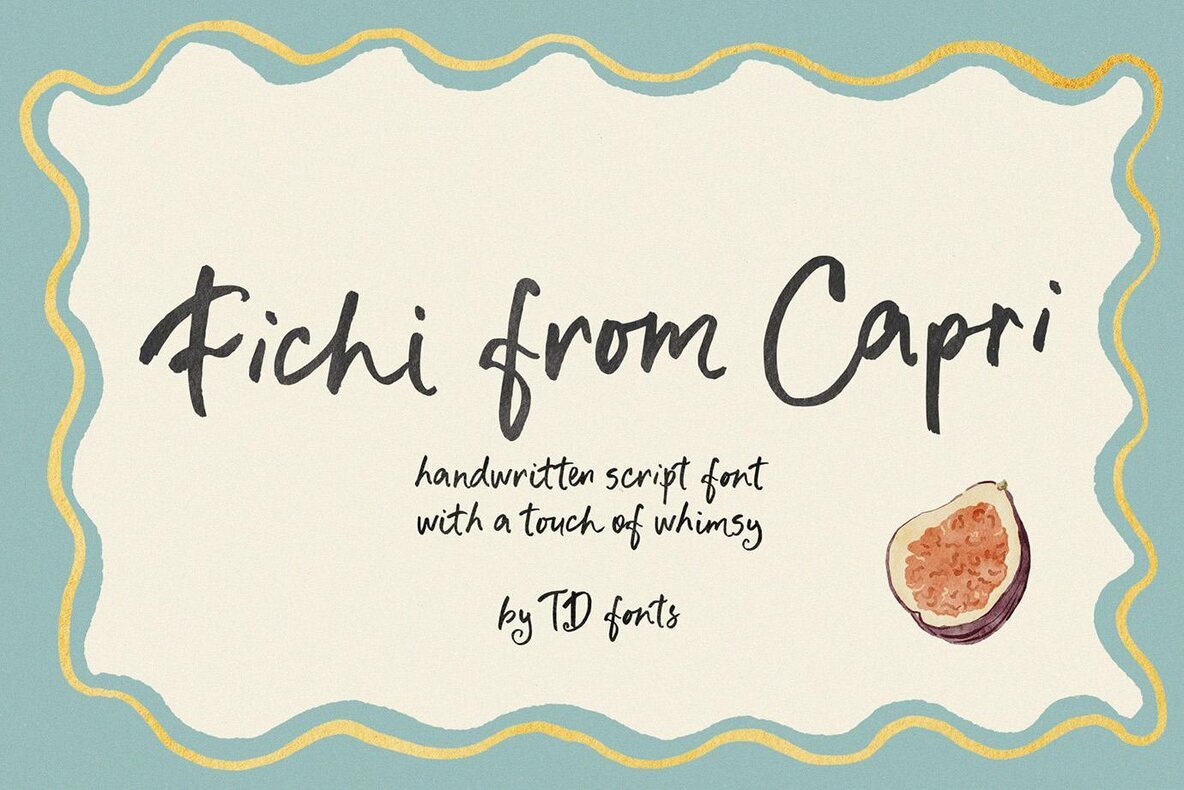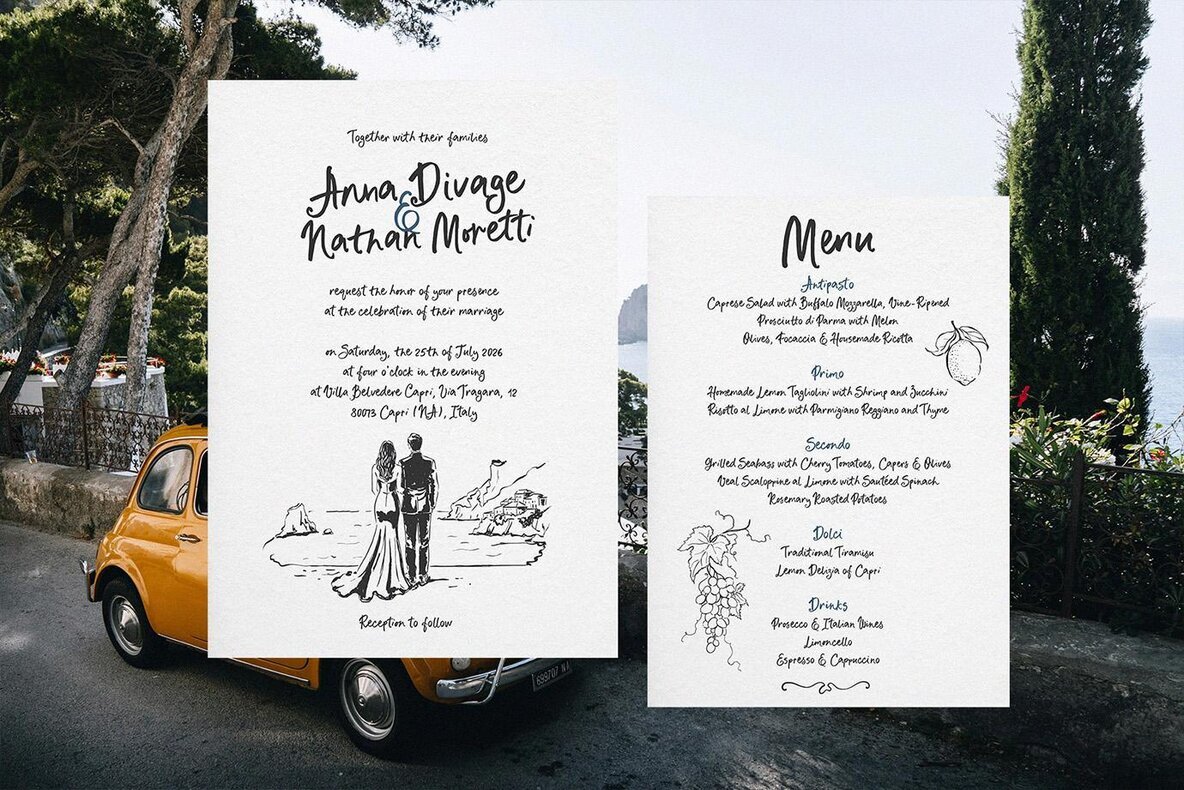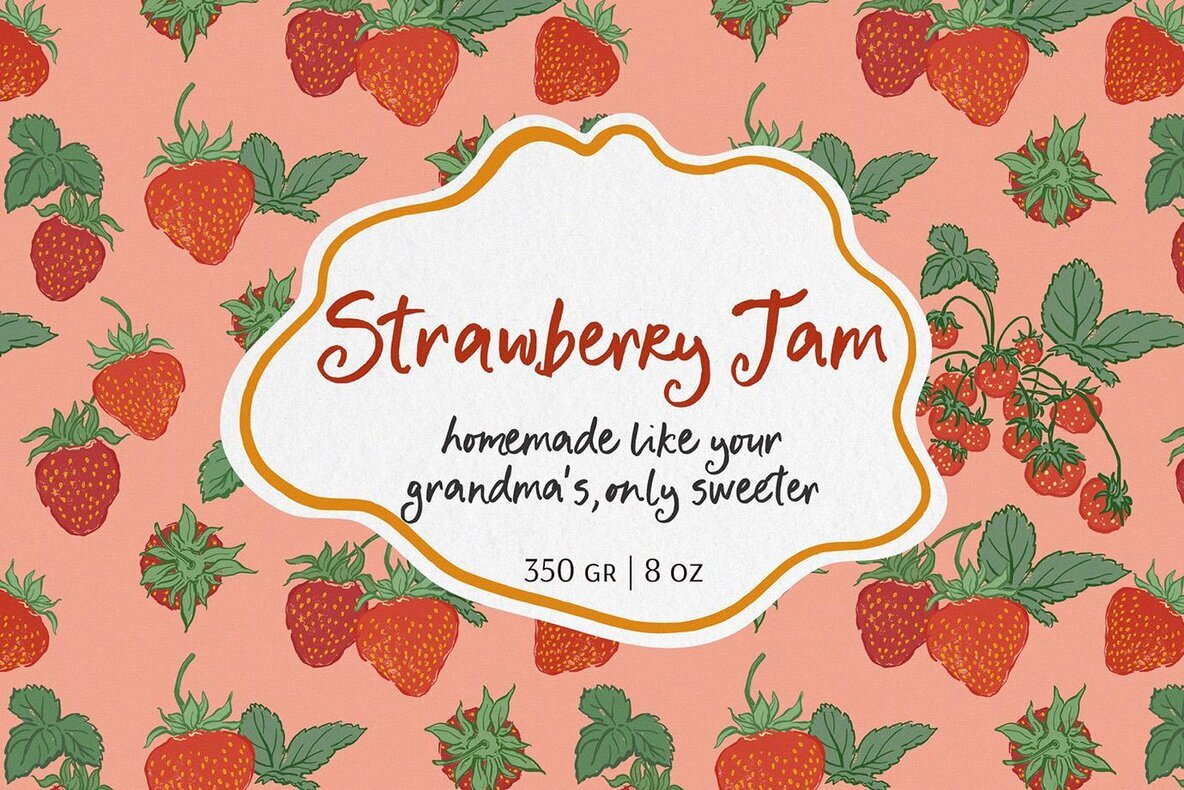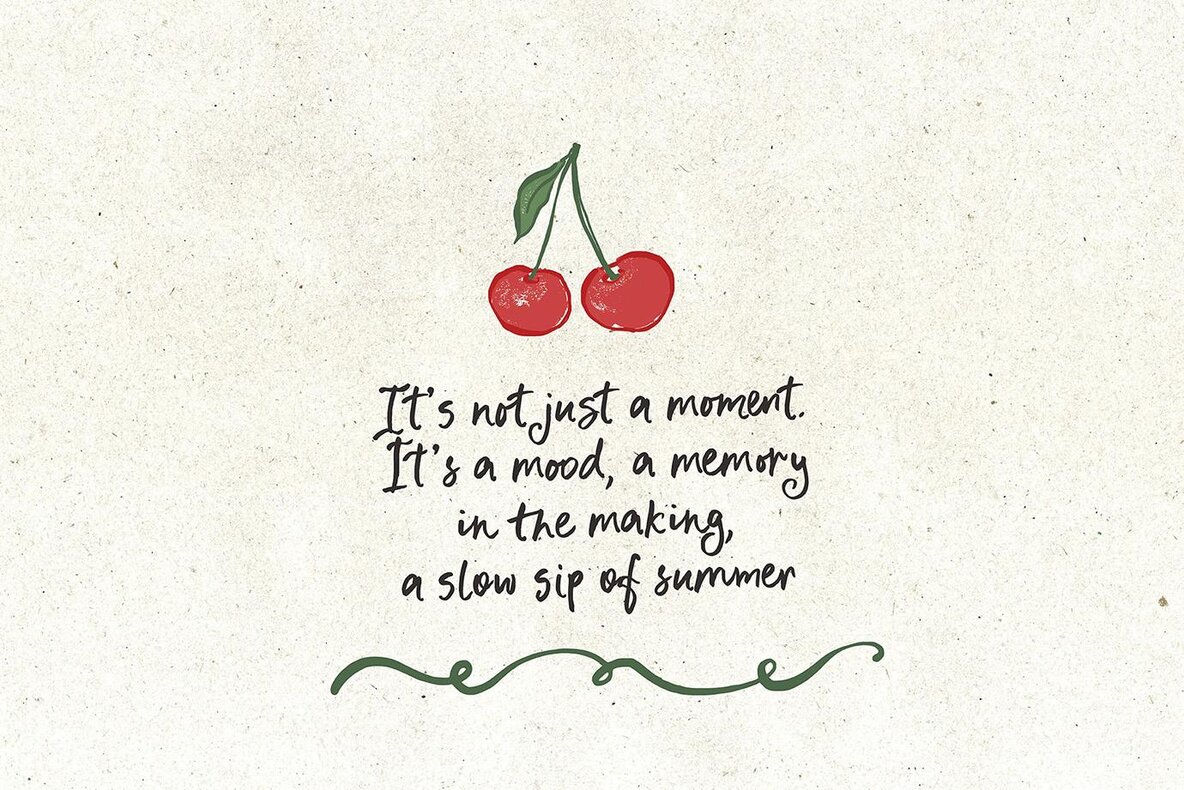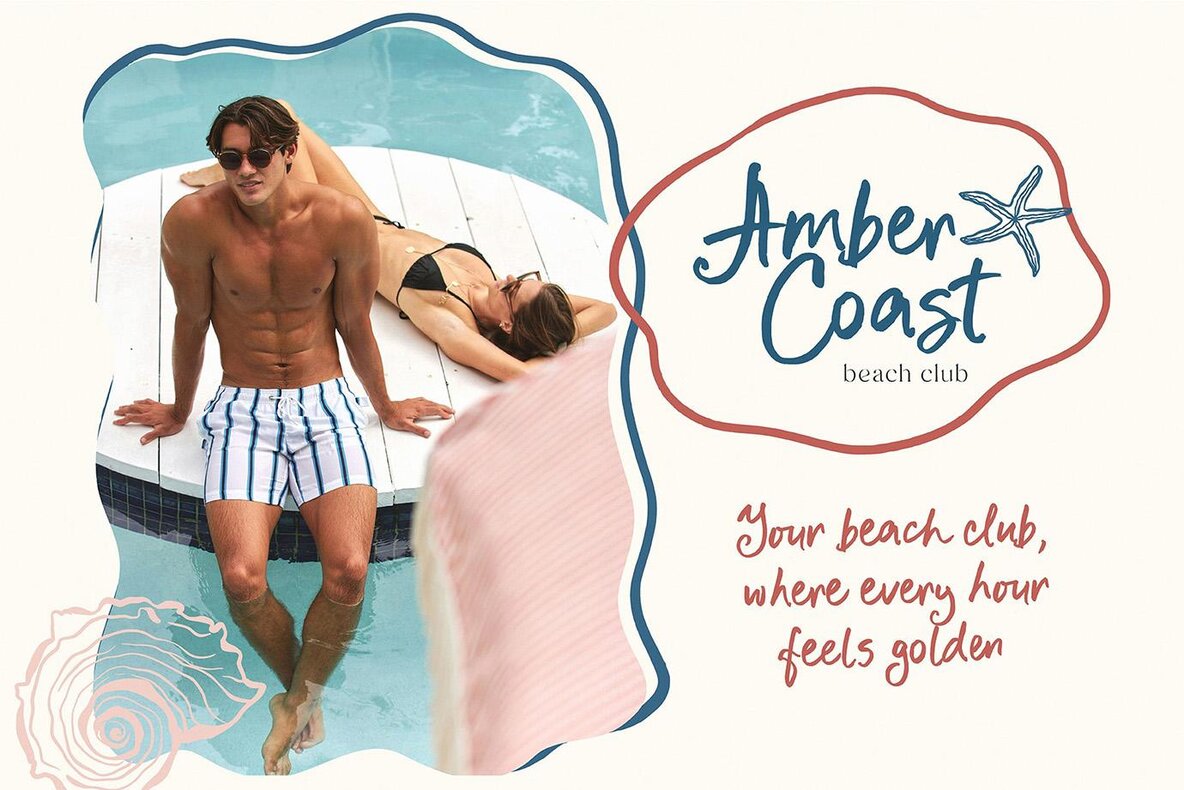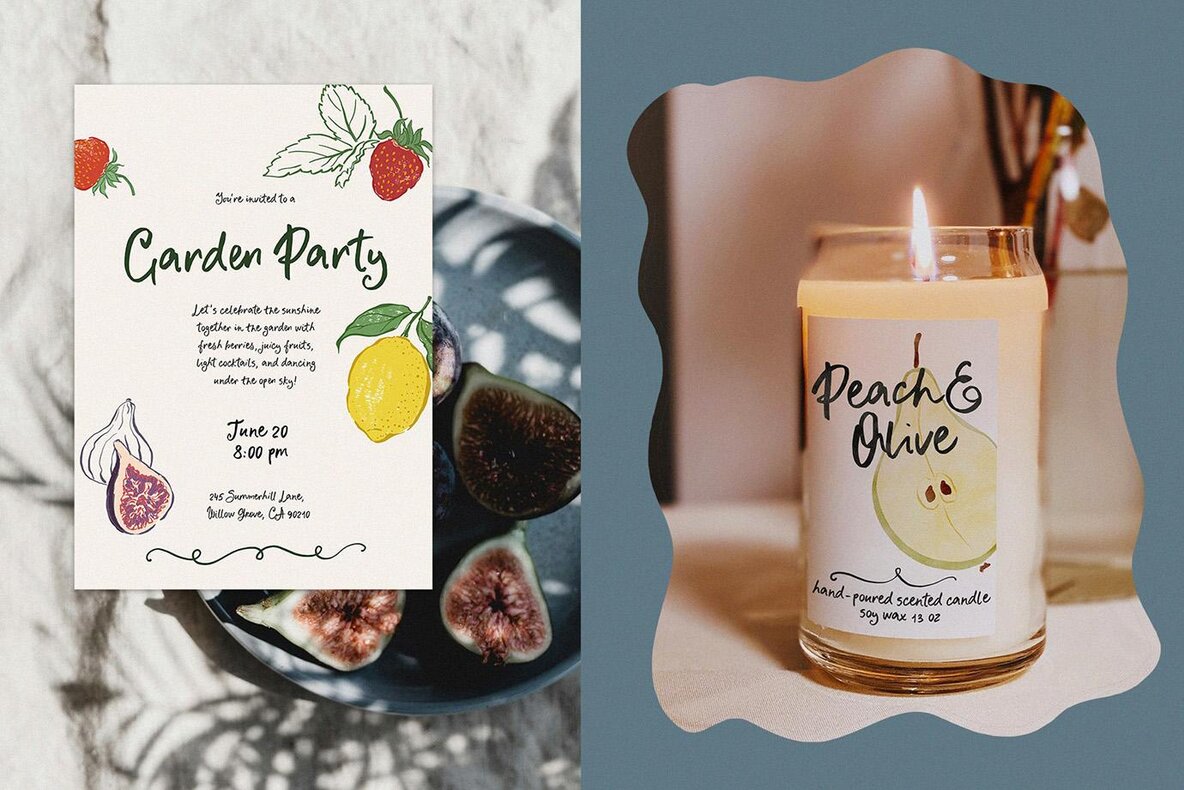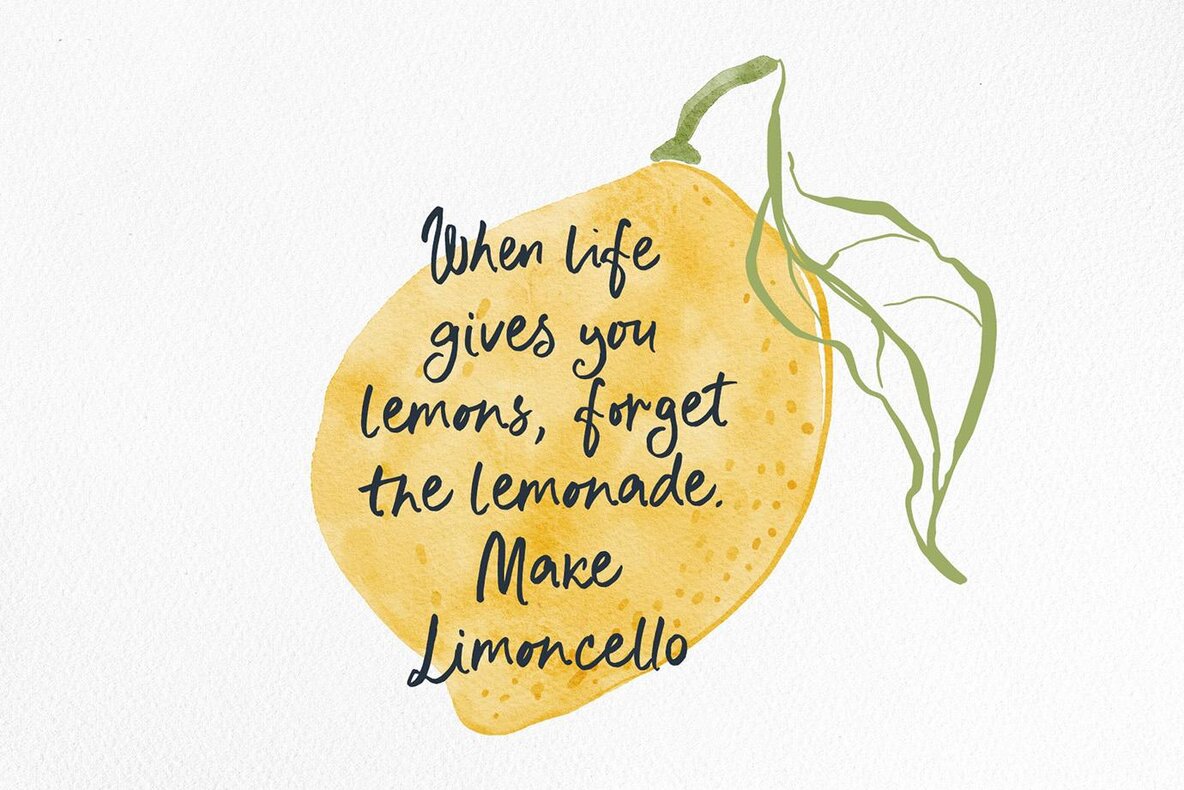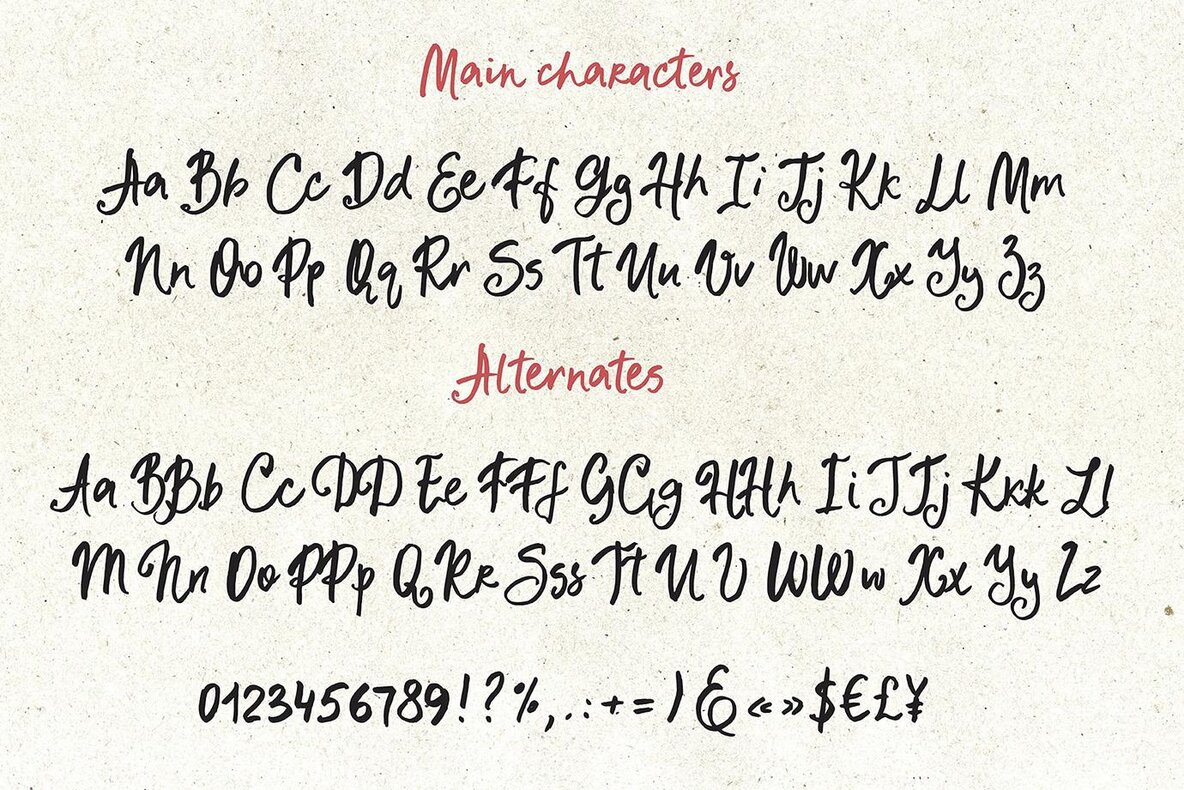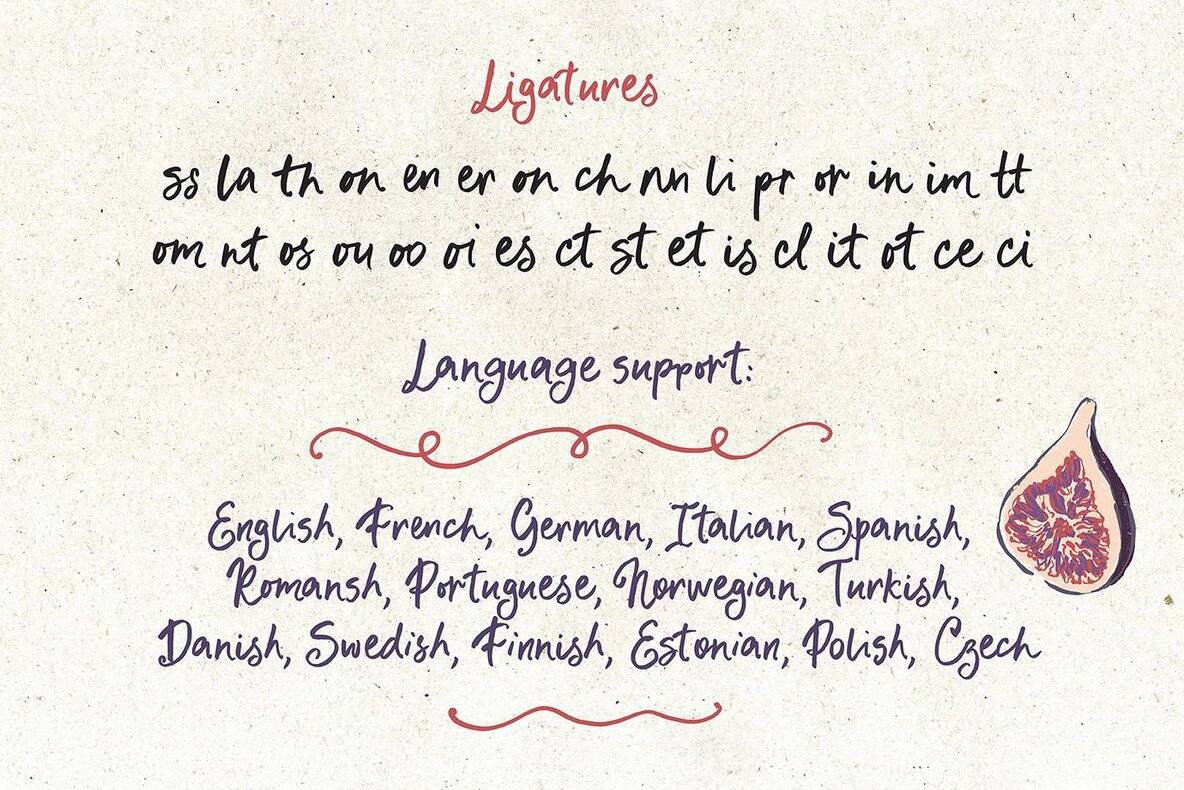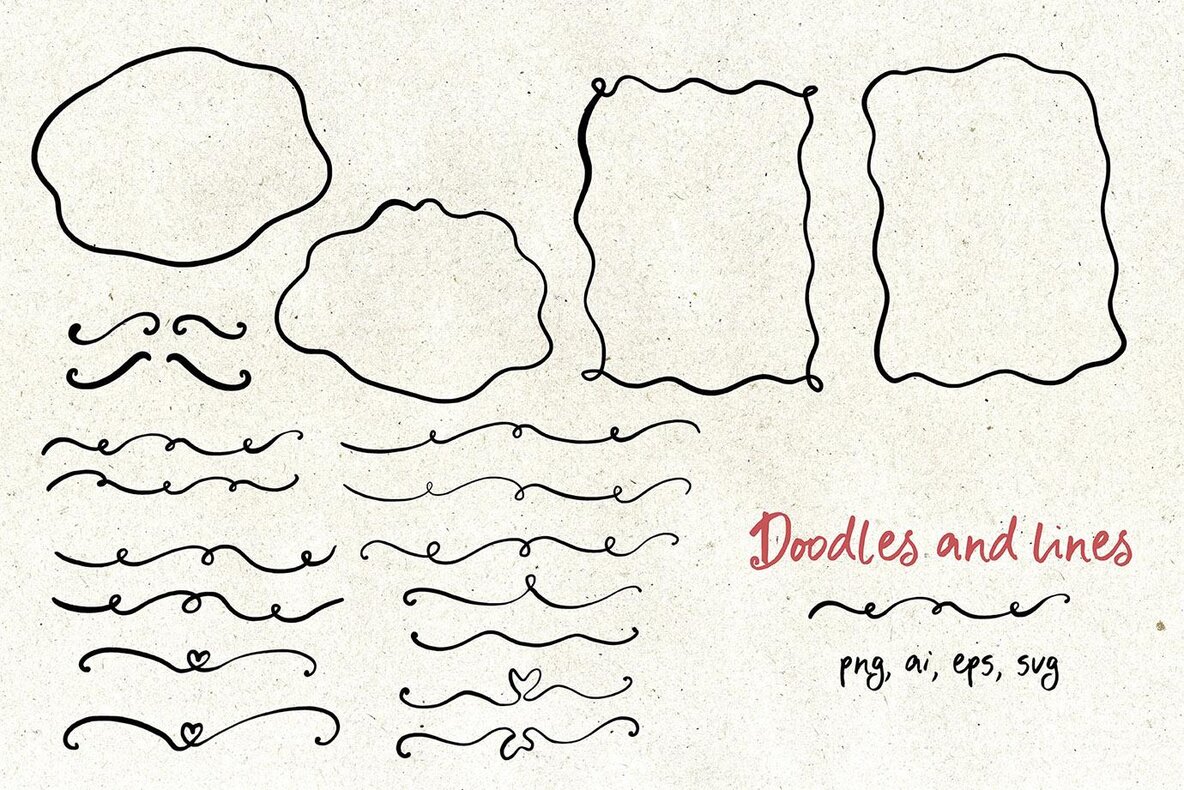
Fichi from Capri Font
Bring a fashionable touch of whimsy and playfulness to your creative projects with the Fichi from Capri font. This charming handwritten script font, designed with a hint of carefree spirit, effortlessly adds a natural and cozy vibe. Hand-drawn on paper, Fichi from Capri features a delightful irregularity, with playful bounces and occasional unexpected slants, perfectly capturing a carefree and warm summer holiday mood. Along with the Fichi from Capri font, you'll also receive 21 doodle illustrations in PNG, EPS, AI, and SVG formats, enhancing your design with versatile creative elements. Whether you're crafting branding materials, whimsical prints, or contemporary wedding designs, this font is your go-to choice for expressive and stylish lettering.Fichi from Capri Font: Playful Handwritten Script